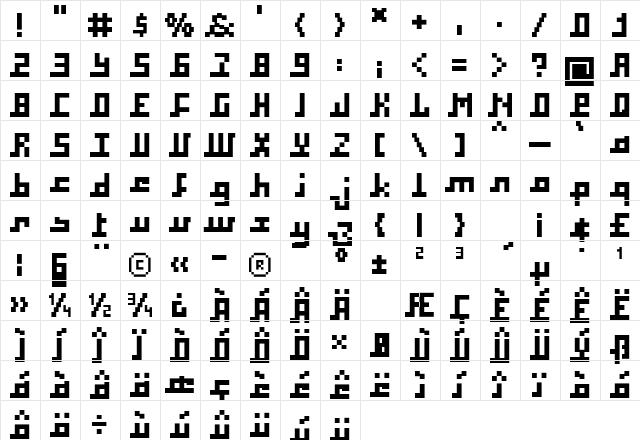
Square Bold Font Preview
Square Bold
Design Context for Square Typeface
Square is a composed and adaptable typeface that performs quietly and consistently across a wide range of design contexts. Its bold stroke weight gives it real presence on the page.